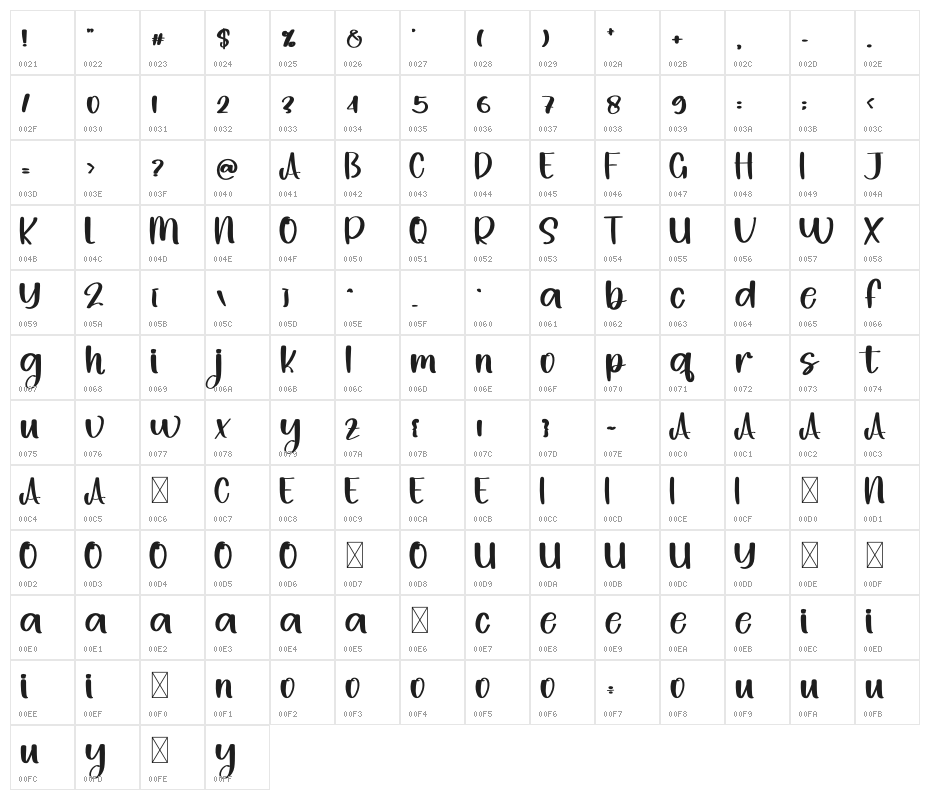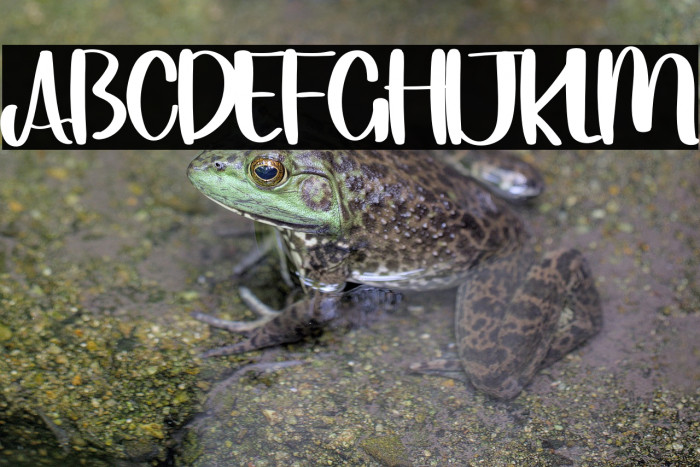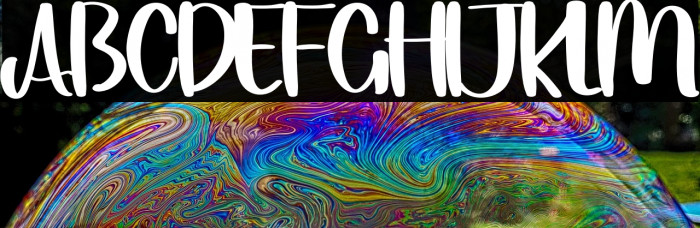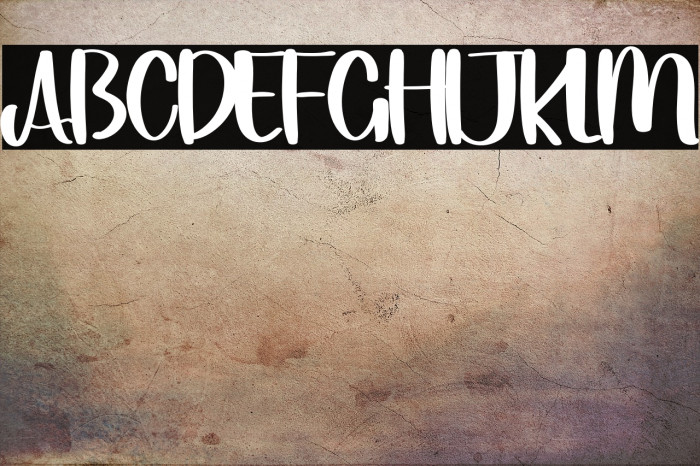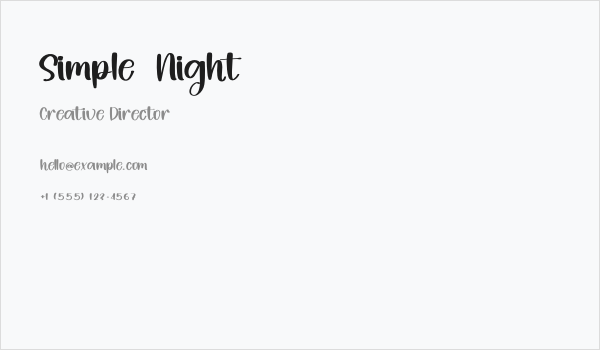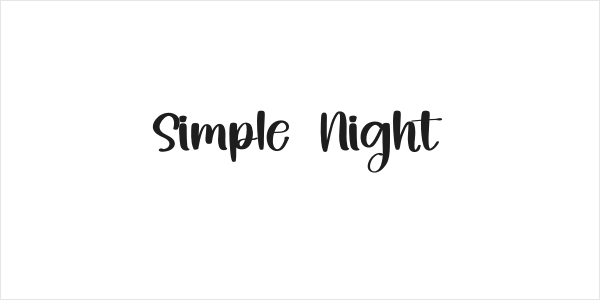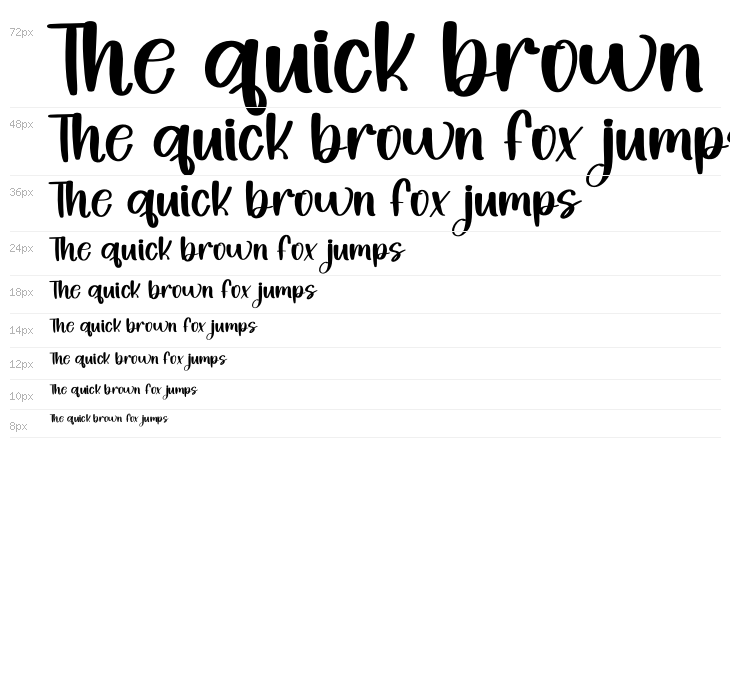
Simple Night Font
Simple Night Description
A playful, bold handwritten script with rounded edges and fluid, brush-like strokes. The characters are slightly condensed with a casual, friendly appearance, and the numerals and punctuation match the lively style.
| Width | Condensed |
| Overall Style | Decorative, Playful, Modern |
| Use Case | Logos, Headlines, Posters, Invitations |
| Proposed Projects | Greeting cards, invitations, posters, branding for creative businesses, social media graphics. |